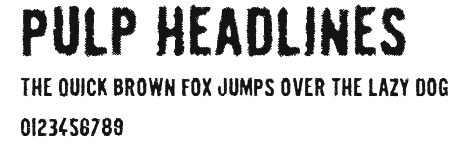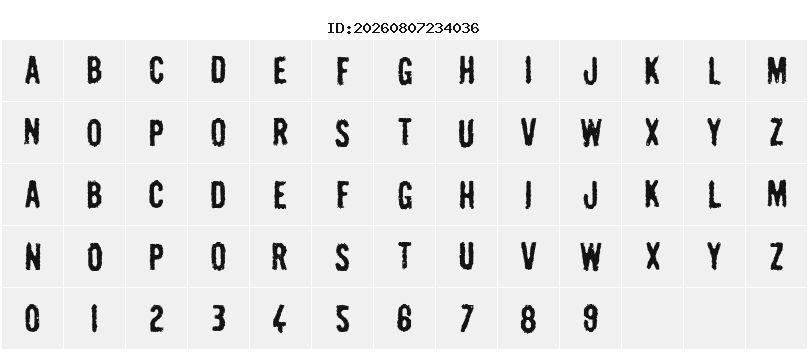
• Font Name: Pulp Headlines
• Designer: IMAGEX
About Pulp Headlines.ttf
Pulp Headlines.ttf is a modern, elegant sans-serif font designed for ultimate readability and visual harmony. Perfect for branding, headlines, web design, and print materials.